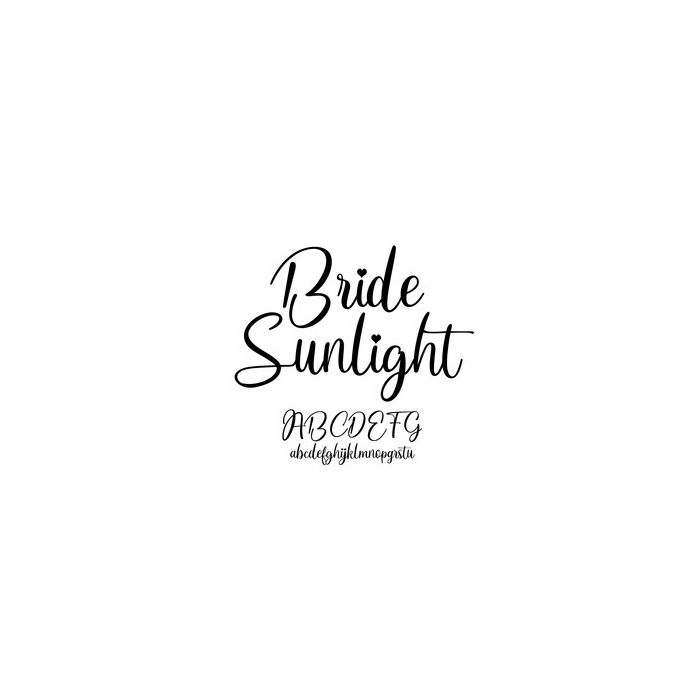
Bride Sunlight. Beautiful and vibrant handwriting style, this is the original product of handwriting, so it is uniformly used in today's design models. You can see and match with your big imagination!